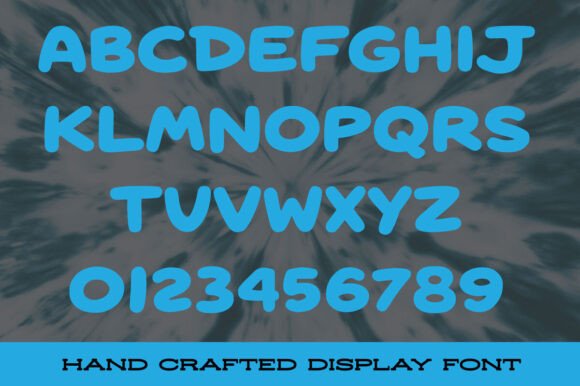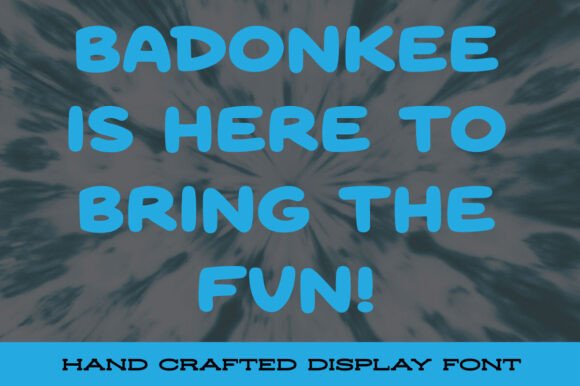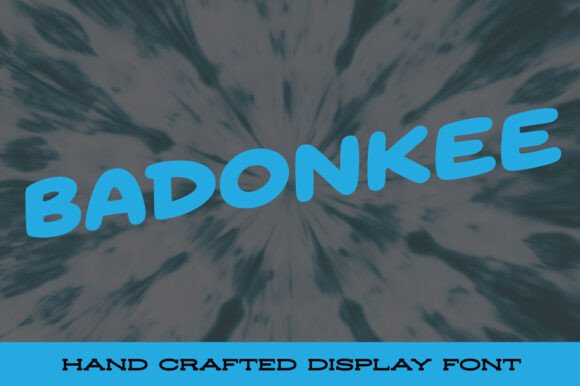
Introducing Badonkee Font: The Ultimate Playful Typeface for Fun and Creativity
Are you tired of using the same old fonts for your designs? Look no further than Badonkee, a bold, bouncy, and wildly fun font that’s sure to bring a smile to your face. With its chunky, rounded style and playful curves, Badonkee is the perfect choice for cartoons, comics, kids’ designs, and anything that needs a dose of humor and energy.
The Personality of Badonkee
Badonkee is more than just a font – it’s a personality. Its slightly exaggerated forms and soft yet hefty design make it a standout in any design. Whether you’re crafting a quirky logo, an eye-catching poster, or a lively product label, Badonkee delivers a lighthearted punch with every letter. Its playful curves and rounded edges give it a friendly and approachable feel that’s sure to resonate with your audience.
Badonkee is a font that’s designed to inspire creativity and fun. As a designer or crafter, you know how important it is to have a font that can keep up with your imagination. Badonkee is up to the task, with a versatility that makes it perfect for a wide range of projects. From children’s books to comic books, and from posters to product labels, Badonkee is the perfect choice for anyone looking to add a little humor and energy to their design.
Key Features of Badonkee
- Bold and Bouncy: Badonkee is a font that’s designed to make a statement. Its bold and bouncy style is sure to grab attention and add a playful touch to your design.
- Chunky and Rounded: Badonkee’s chunky and rounded style gives it a soft and friendly feel that’s perfect for designs that need a little extra personality.
- Playful Curves: Badonkee’s playful curves and slightly exaggerated forms make it a font that’s full of life and energy.
- Highly Readable: Despite its playful style, Badonkee is highly readable, making it perfect for designs that need to communicate a message.
Using Badonkee in Your Designs
So, how can you use Badonkee in your designs? The possibilities are endless! Here are a few ideas to get you started:
- Cartoons and Comics: Badonkee is a natural fit for cartoons and comics, where its playful style and bold lines can really shine.
- Kids’ Designs: Badonkee is perfect for kids’ designs, from children’s books to posters and product labels.
- Logos and Branding: Badonkee’s unique personality makes it a great choice for logos and branding, where it can help you stand out from the crowd.
- Posters and Flyers: Badonkee is a great choice for posters and flyers, where its bold style and playful curves can really grab attention.
In conclusion, Badonkee is a font that’s all about fun and creativity. Its bold, bouncy, and wildly playful style makes it perfect for designers and crafters who want to add a little humor and energy to their designs. With its highly readable style and versatile personality, Badonkee is sure to become a go-to font for anyone looking to make a statement. So why wait? Get ready to make some noise with Badonkee – the ultimate playful typeface!